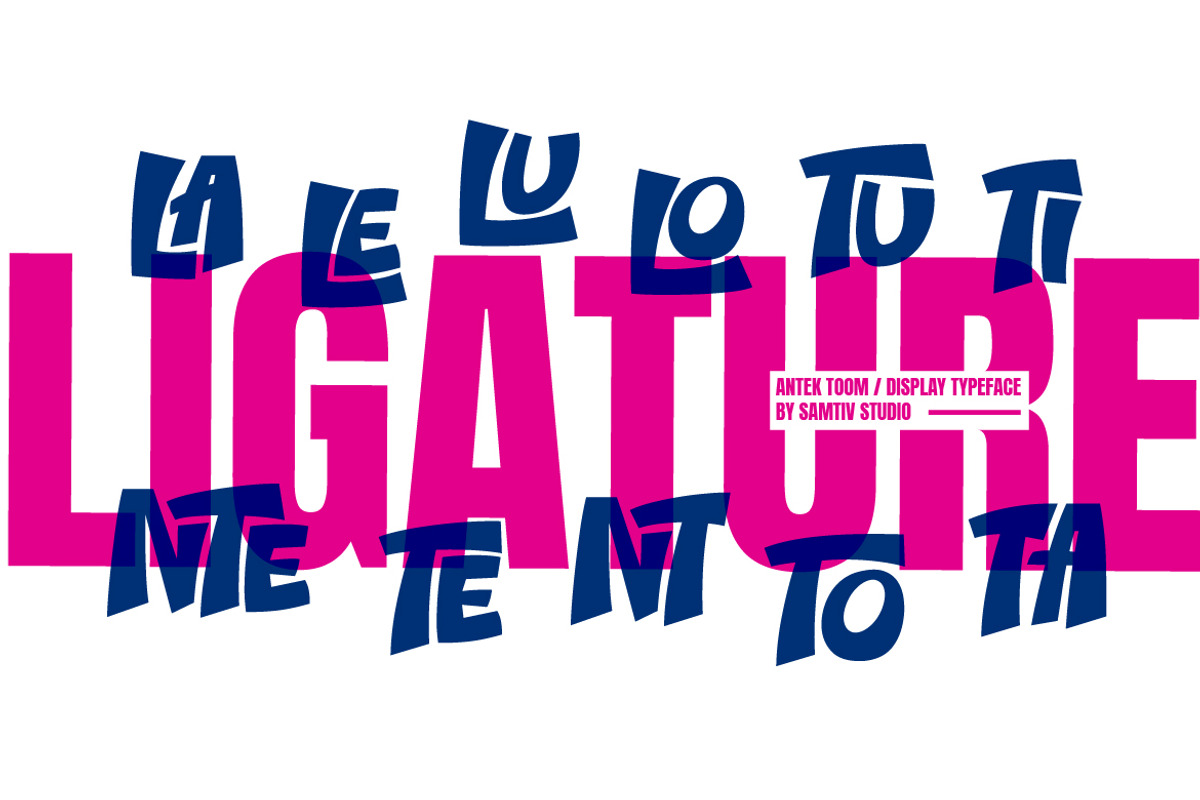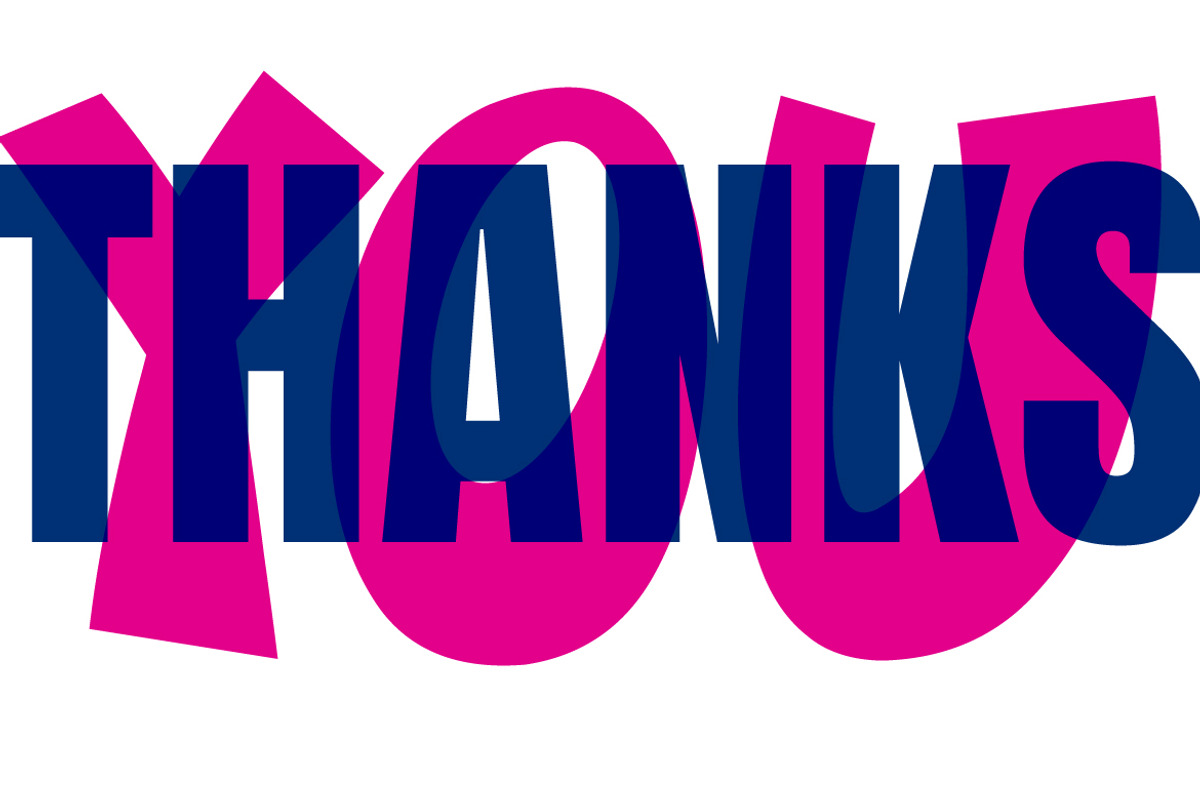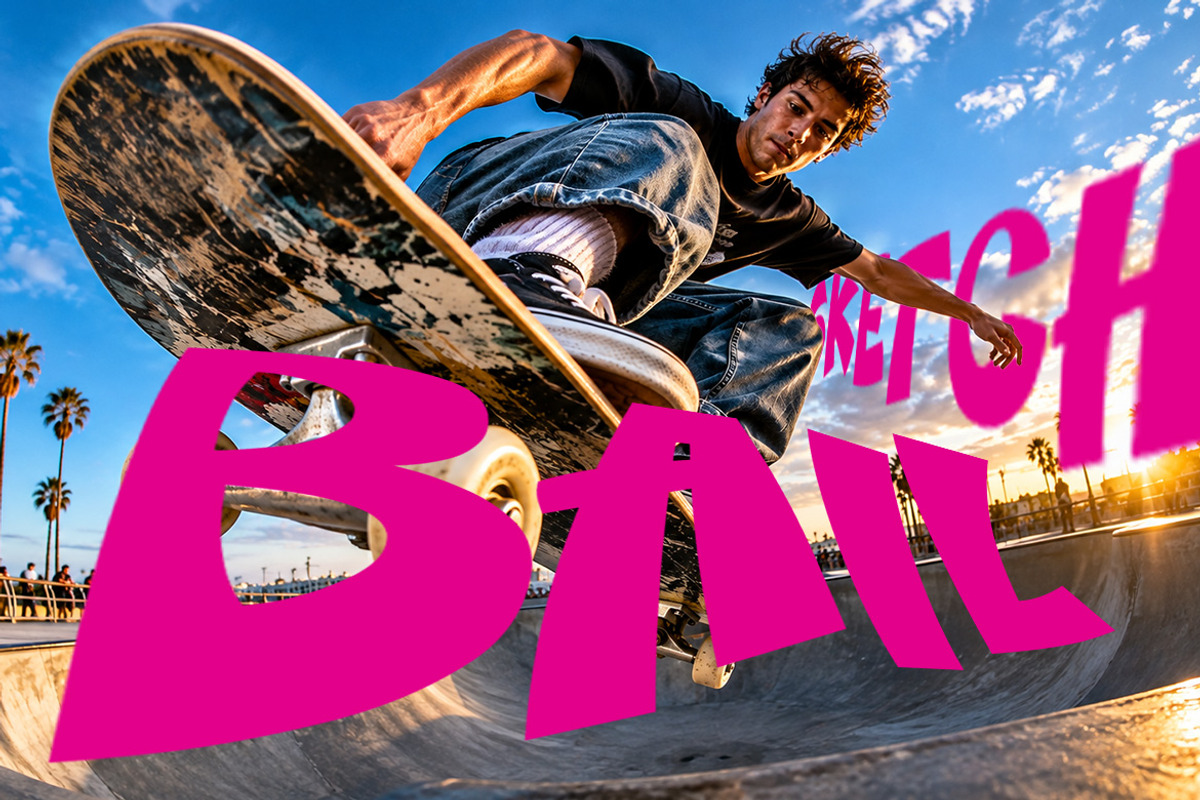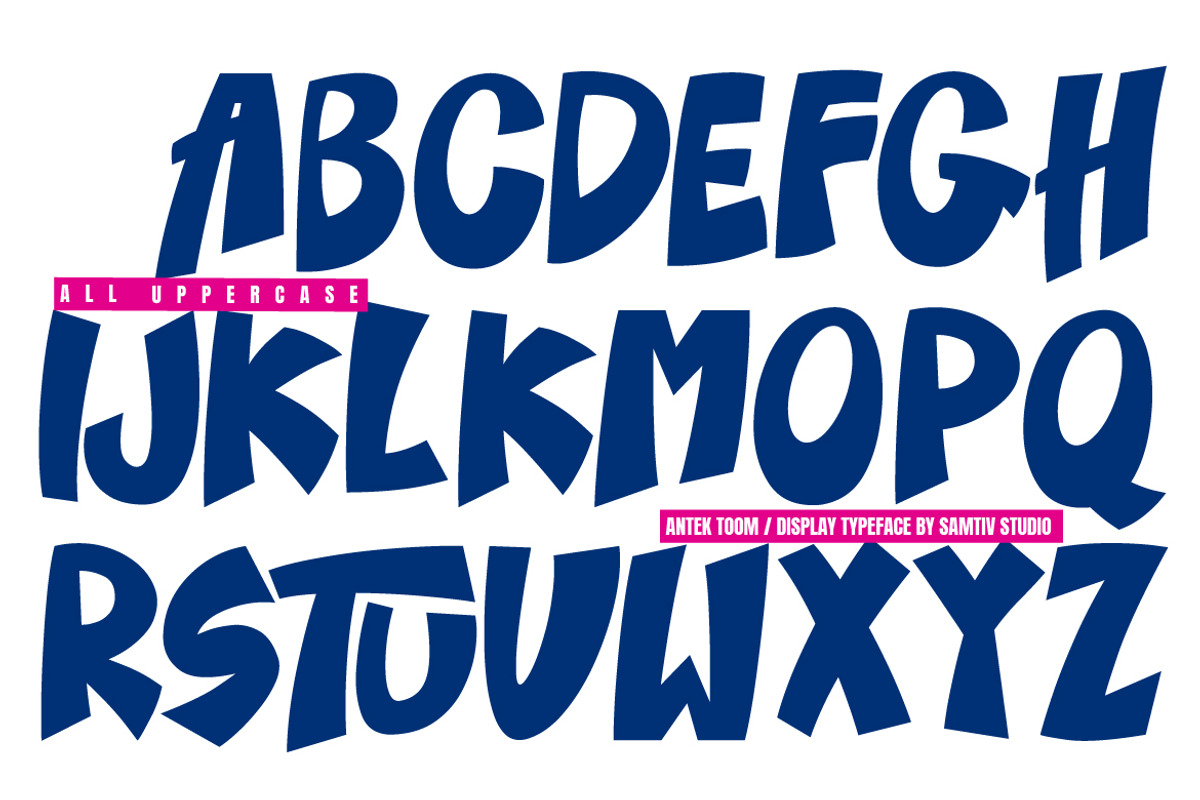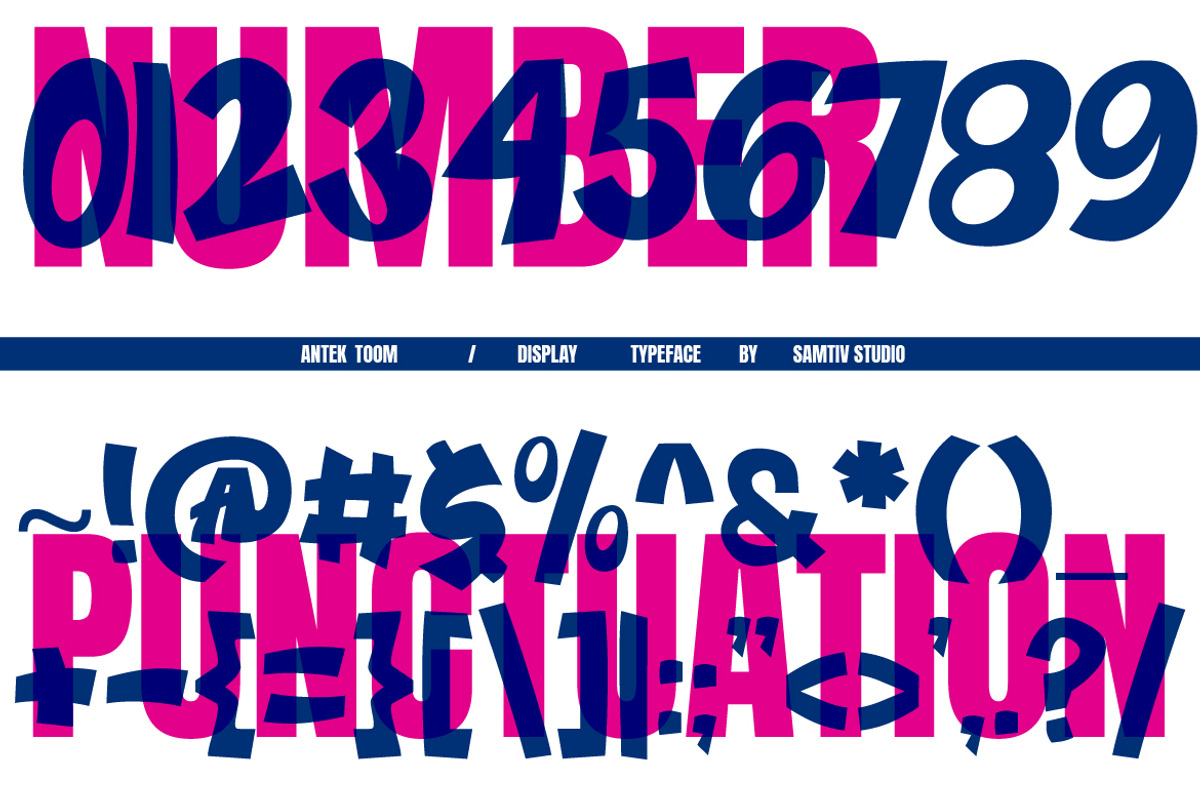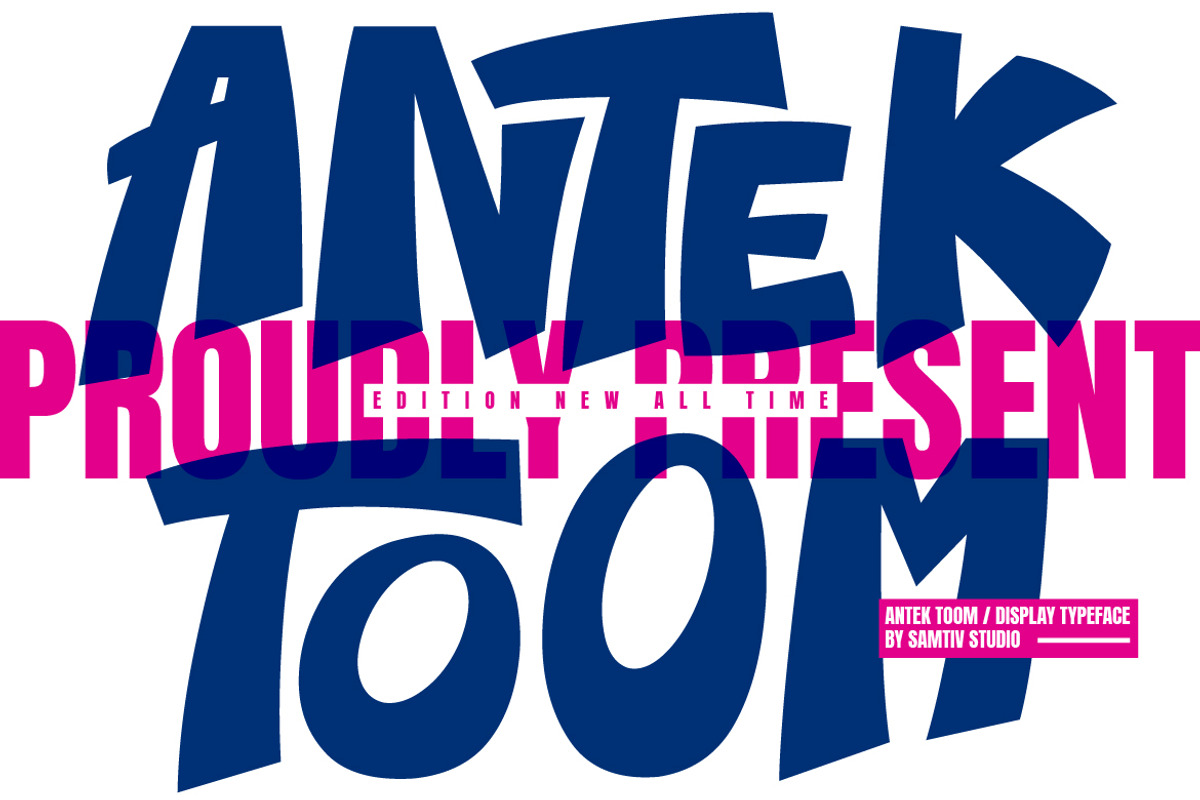
Antek Toom – Urban Bold Display
Antek Toom is a bold and experimental display typeface designed to make a strong visual statement.
With its oversized proportions, dynamic shapes, irregular curves, and distinctive condensed structure, Antek Toom brings an energetic and contemporary personality to your designs.
Perfect for eye-catching headlines, posters, album artwork, editorial layouts, branding, packaging, apparel, social media graphics, and other projects that need a bold typographic presence.
Its unique display style works especially well for streetwear, music, fashion, creative branding, posters, magazines, and modern experimental designs.
Bold and expressive display style
Unique experimental letterforms
Strong visual impact
Great for headlines and large typography
Suitable for branding and poster design
Works well for fashion and streetwear projects
Ideal for editorial and promotional artwork
Perfect for digital and print projects
Antek Toom is made for designers who want typography to become the main visual element of their composition.